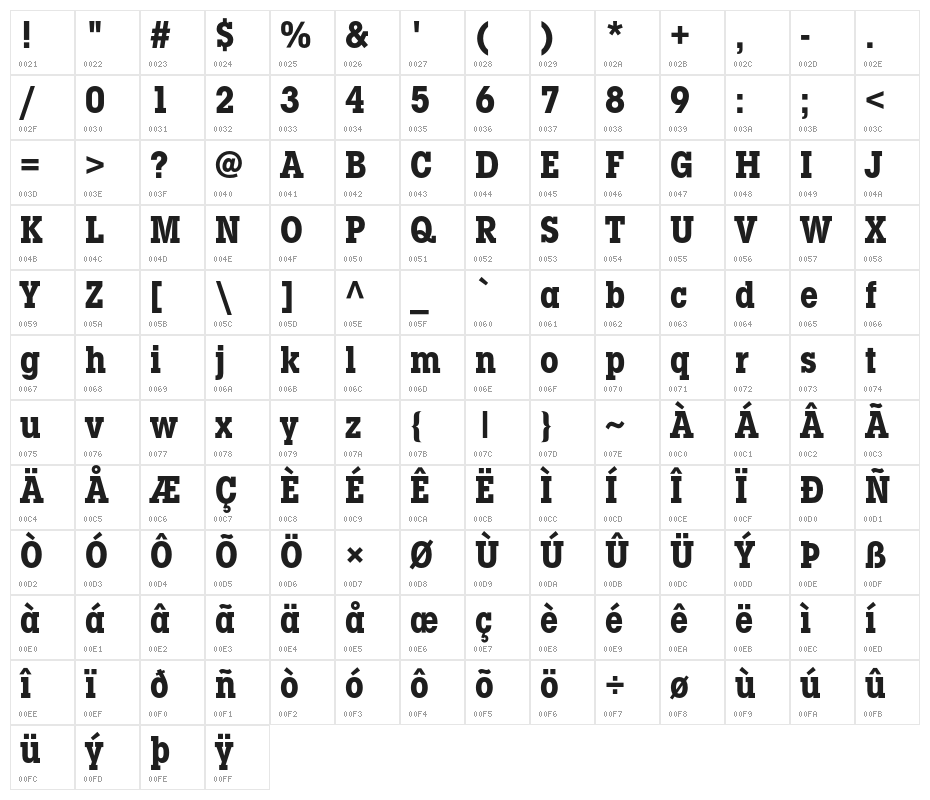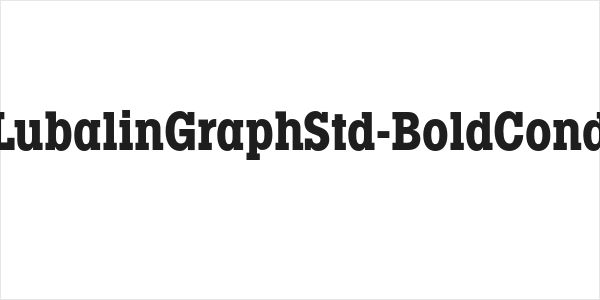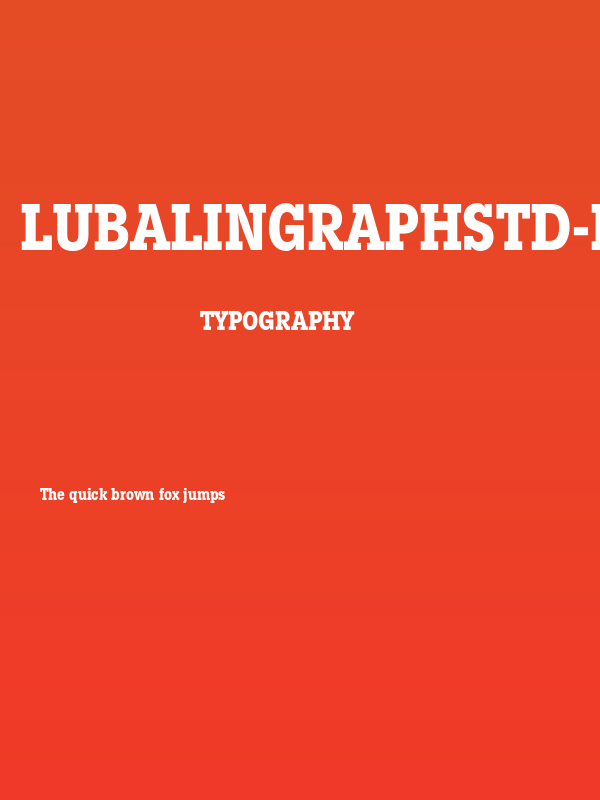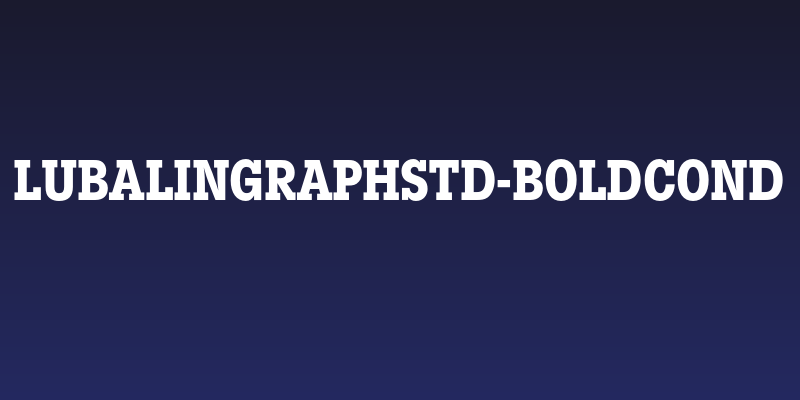
LubalinGraphStd-BoldCond Font
LubalinGraphStd-BoldCond Description
This font features a bold and robust design with strong geometric shapes and slab serifs. The uppercase letters are uniform in height, providing a sense of stability and strength. The lowercase letters maintain a consistent weight, enhancing readability. Numbers are clear and distinct, making them suitable for various applications. The special characters are well-defined, adding versatility to the font. This typeface is ideal for projects that require a bold and assertive presence, such as headlines, posters, and branding materials.
| Proposed Projects | Ideal for headlines, posters, branding, and any design requiring a strong, bold presence. |